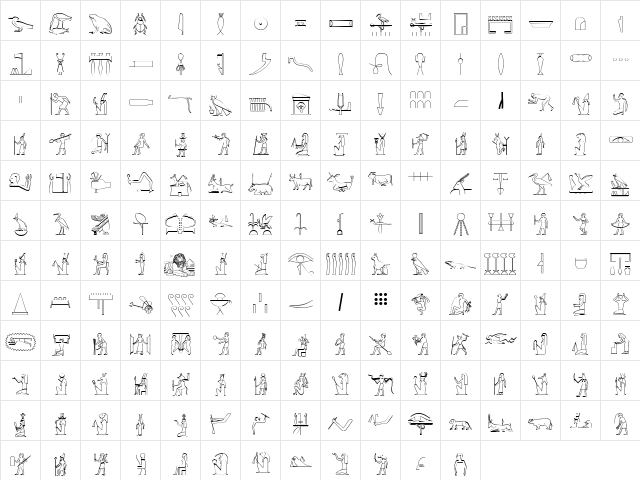
The Nile Song Regular
Design Context for The Nile Song Typeface
The Nile Song is a composed and adaptable typeface that performs quietly and consistently across a wide range of design contexts.